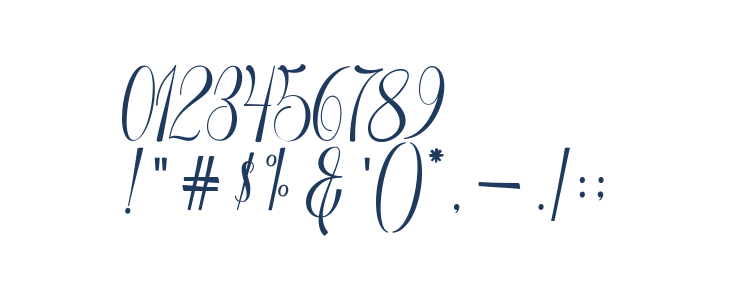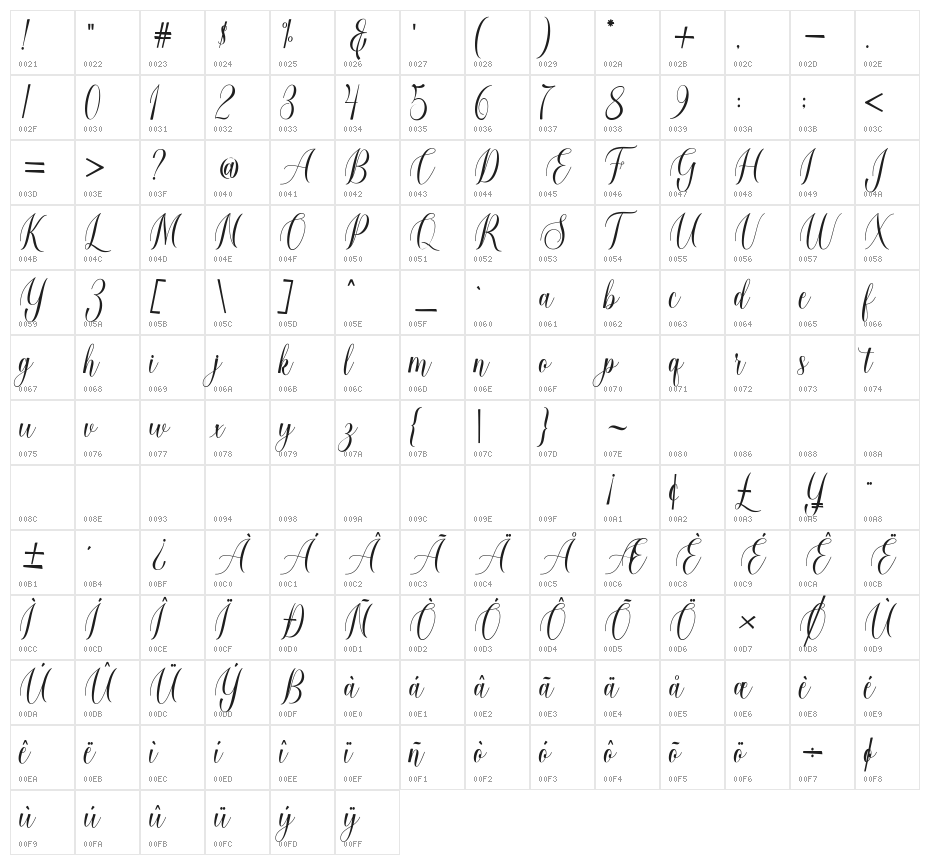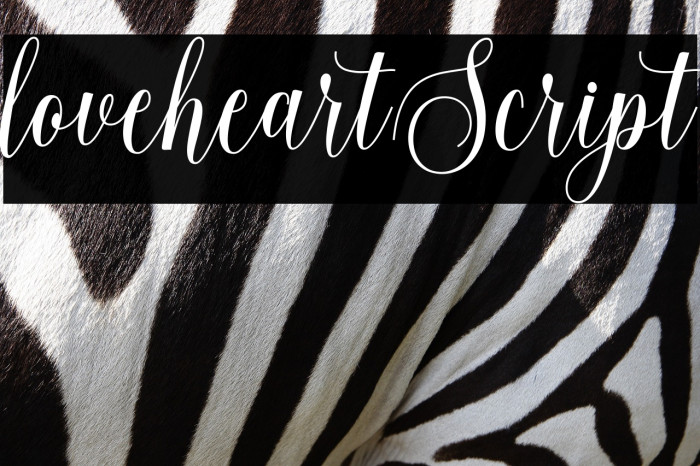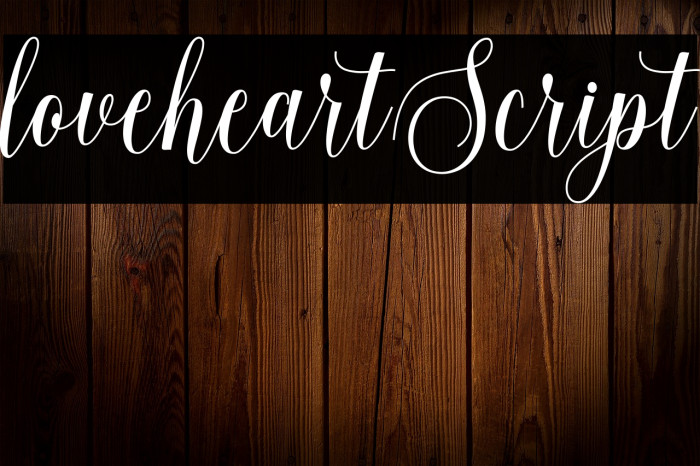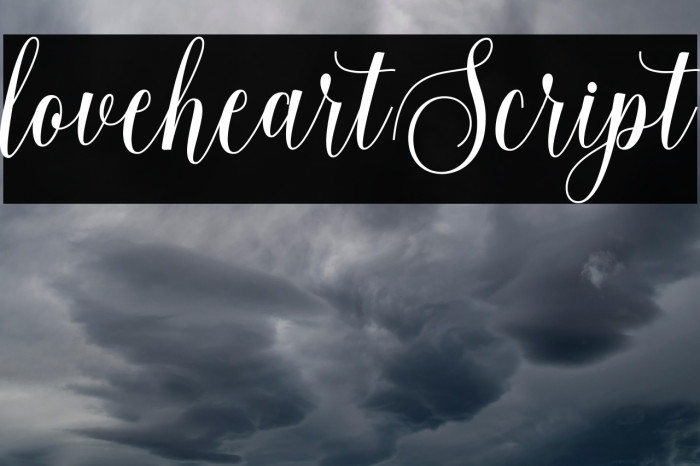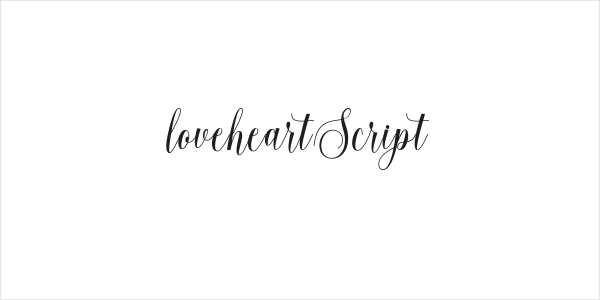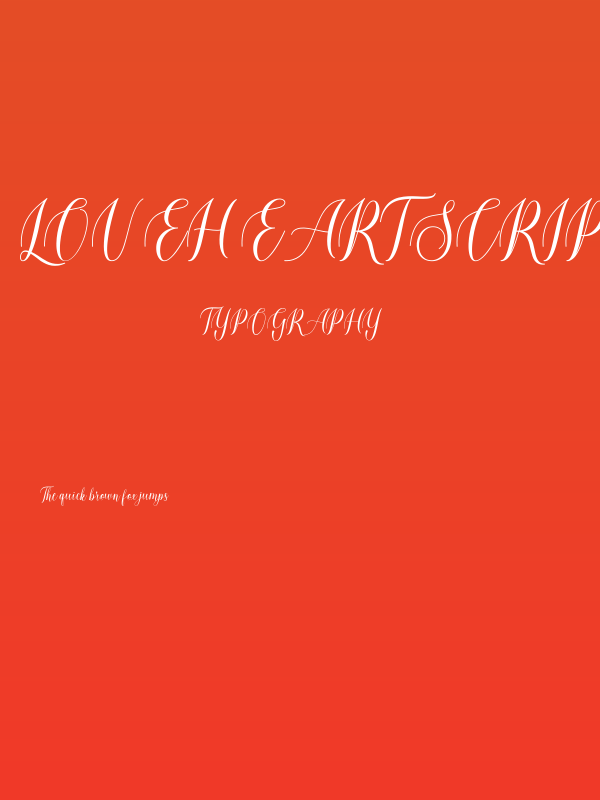
loveheartScript Font
loveheartScript Description
This elegant script font features flowing, cursive letters with a sophisticated and romantic feel. The uppercase letters are particularly ornate, with sweeping curves and flourishes that add a touch of luxury and grace. The lowercase letters maintain a consistent style, with smooth, connected strokes that enhance readability while preserving the font's decorative nature. The numerals and special characters are designed to match the overall aesthetic, providing a cohesive look across all elements. This font is perfect for projects that require a touch of elegance and refinement.
| Overall Style | Elegant, Romantic |
| Proposed Projects | Ideal for wedding invitations, luxury branding, greeting cards, and elegant packaging designs. |